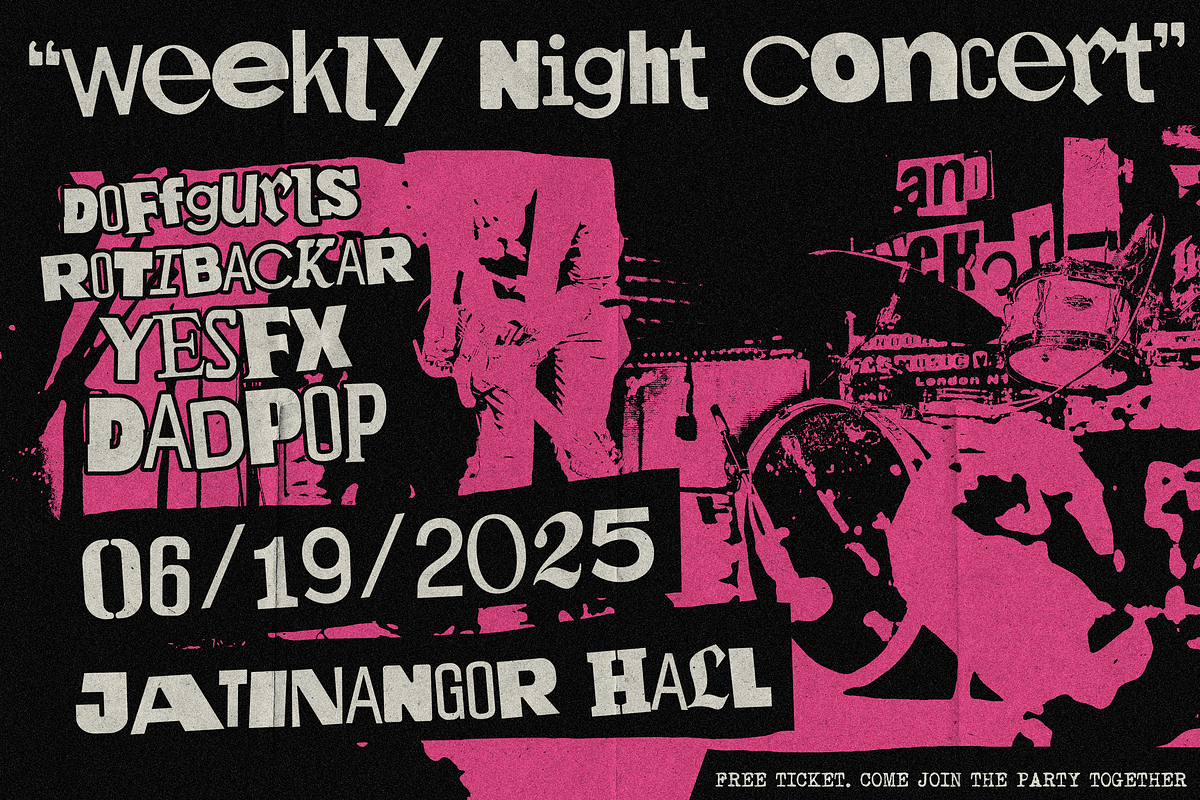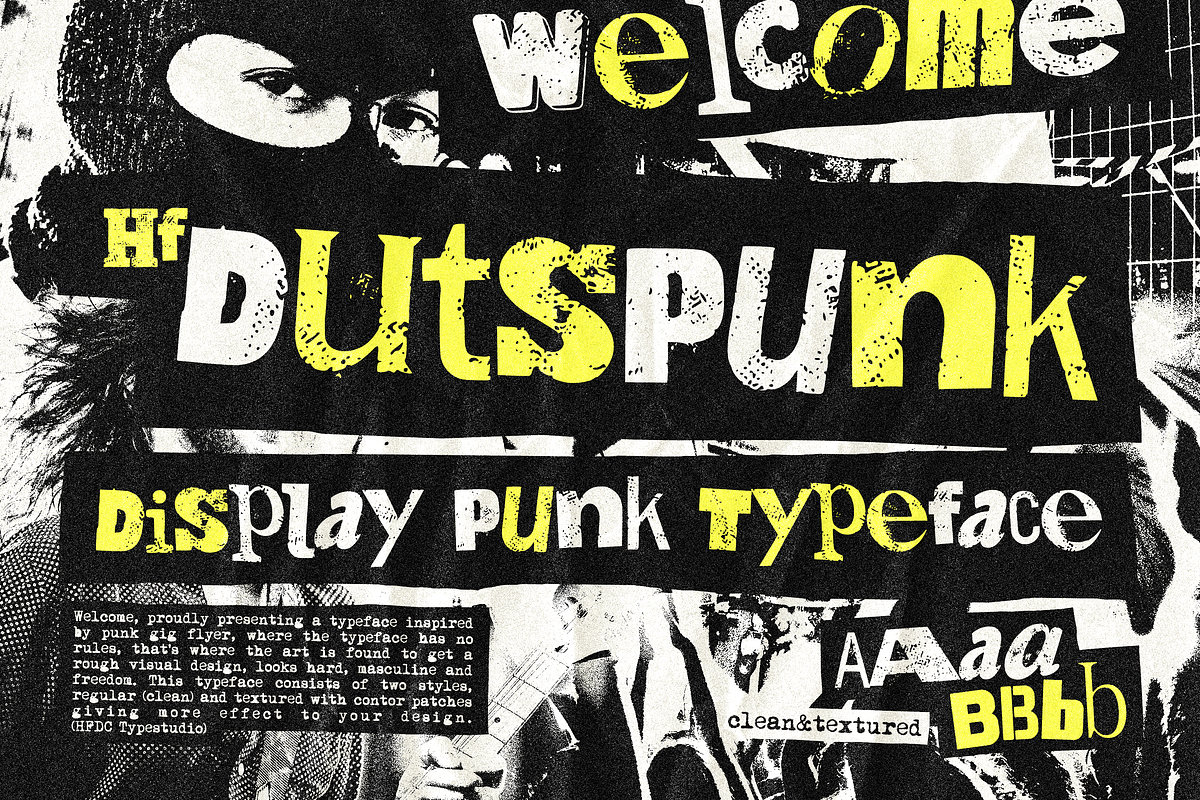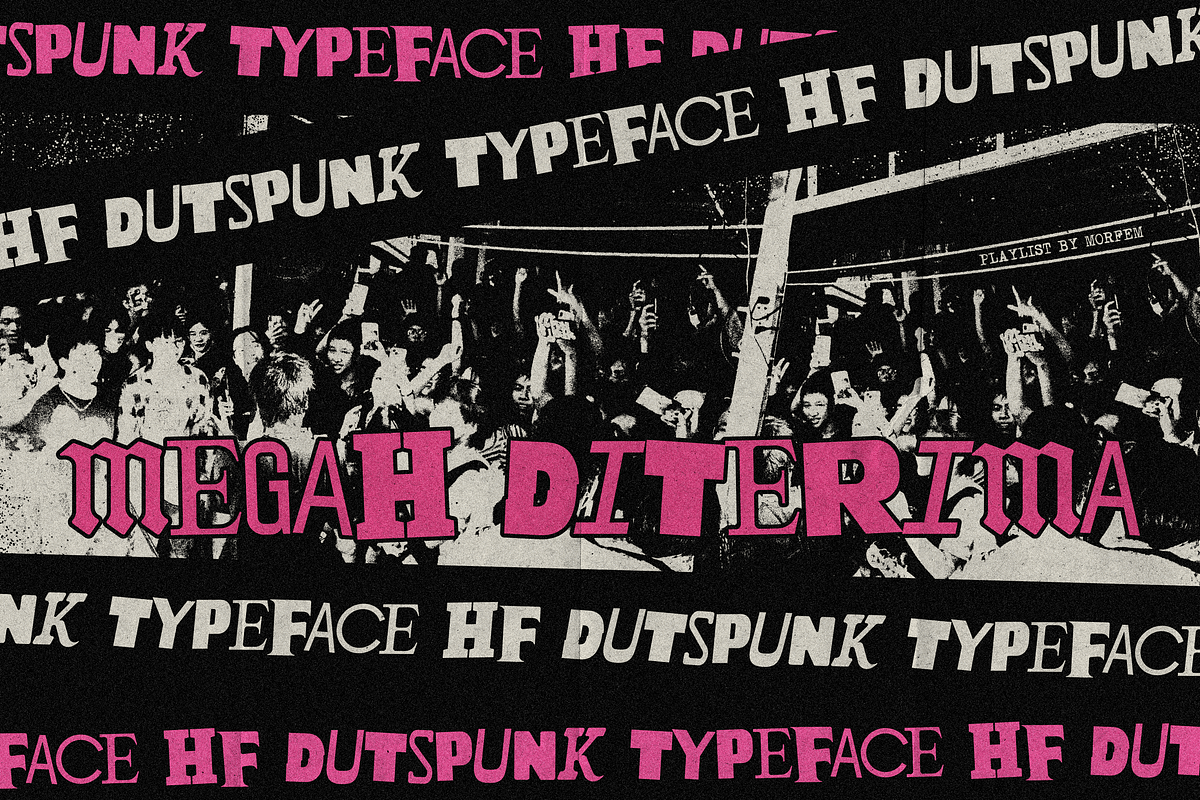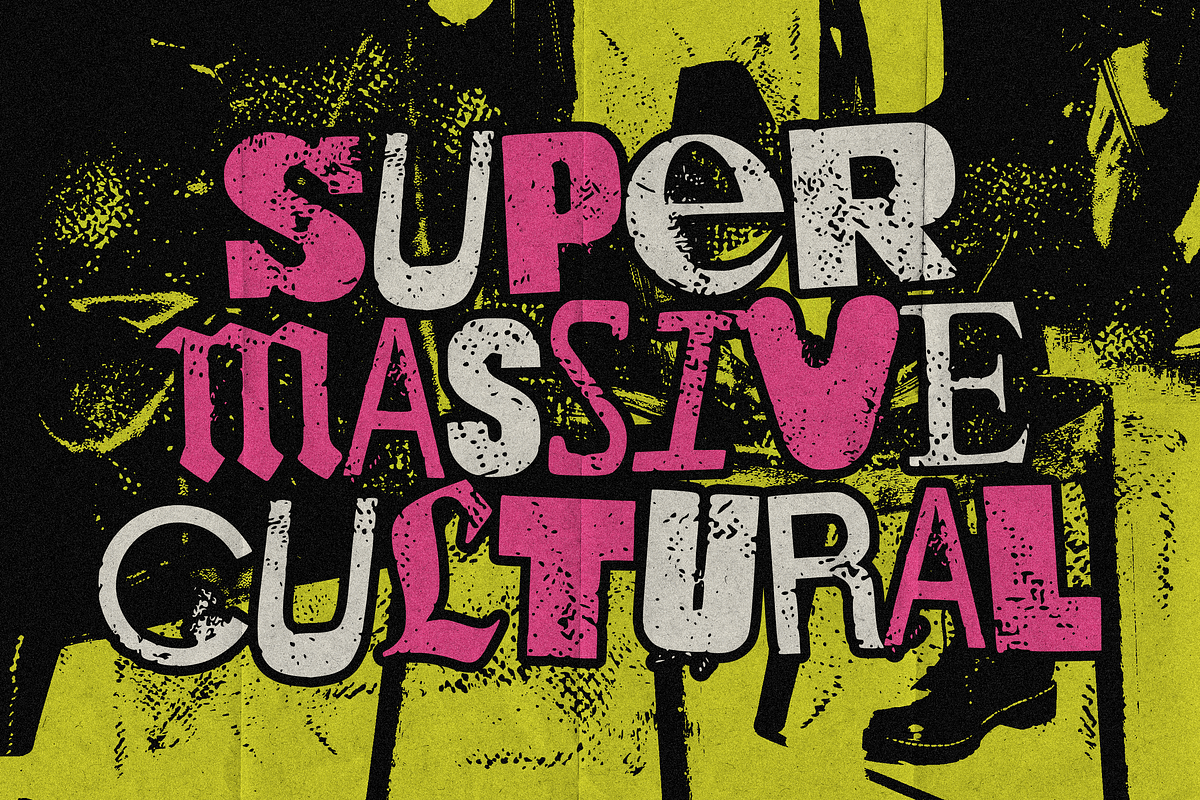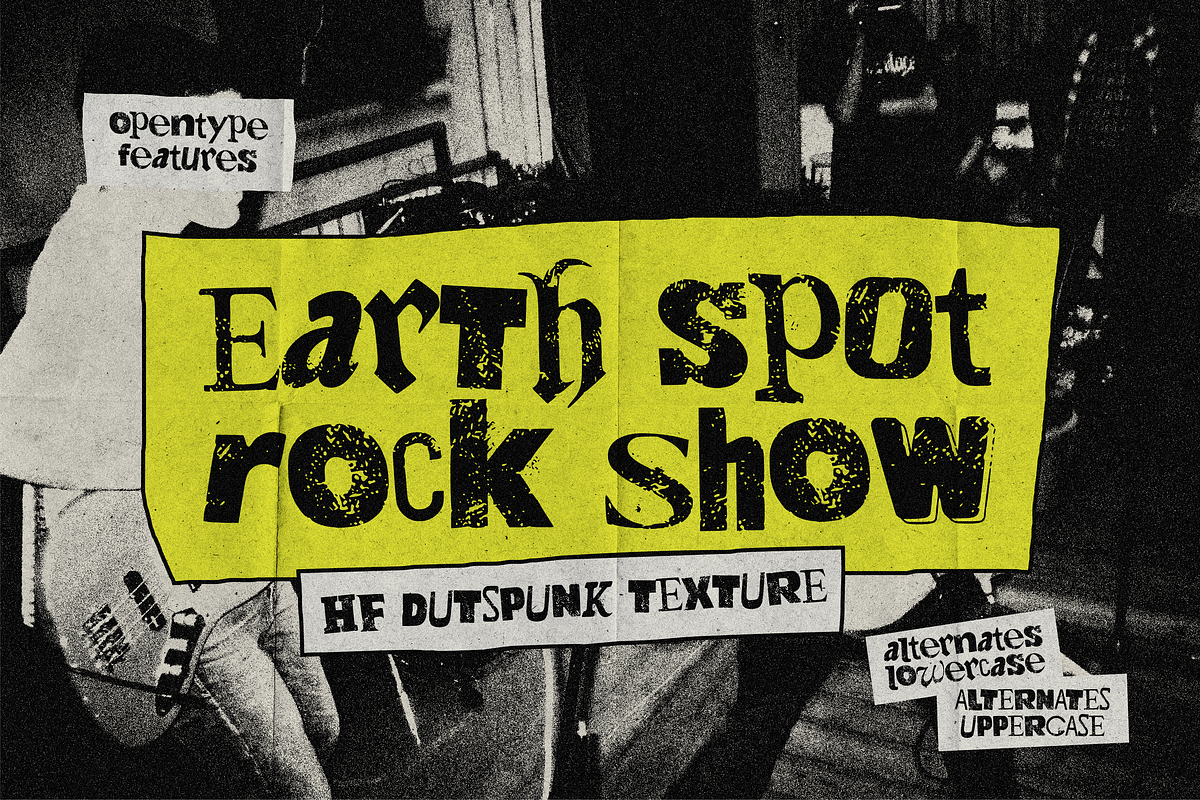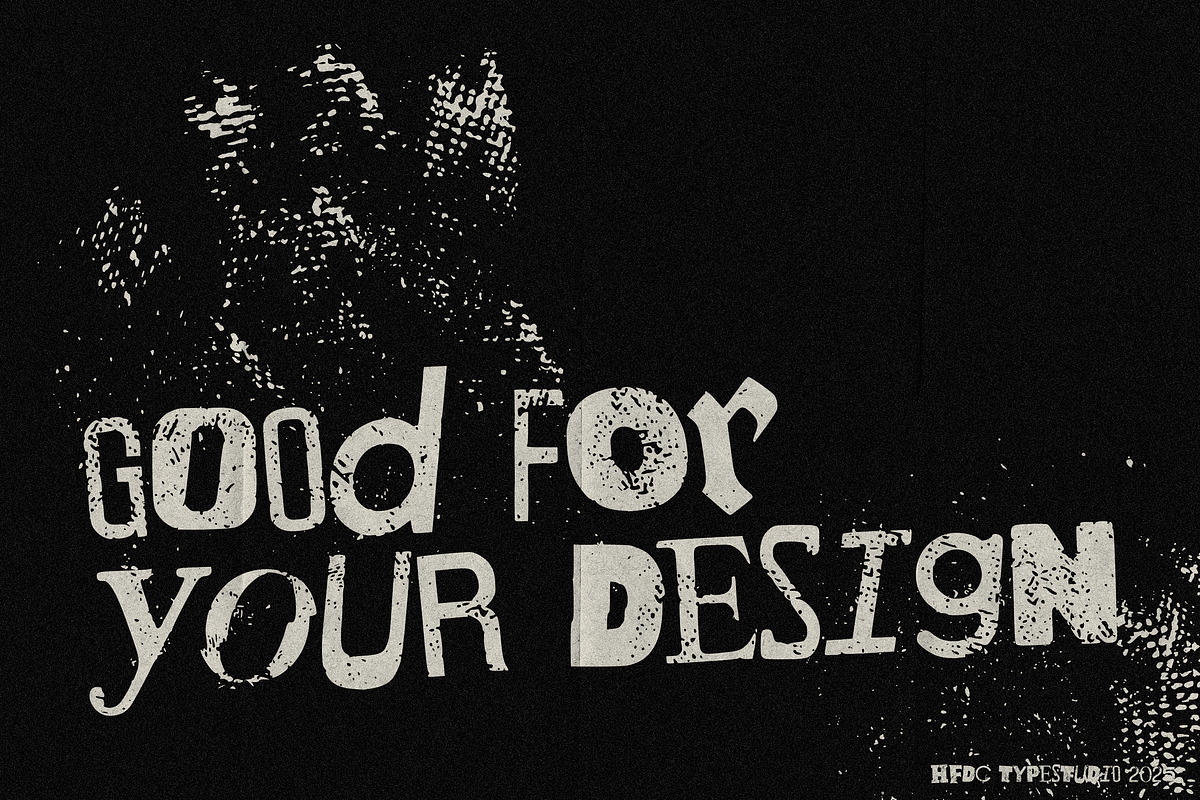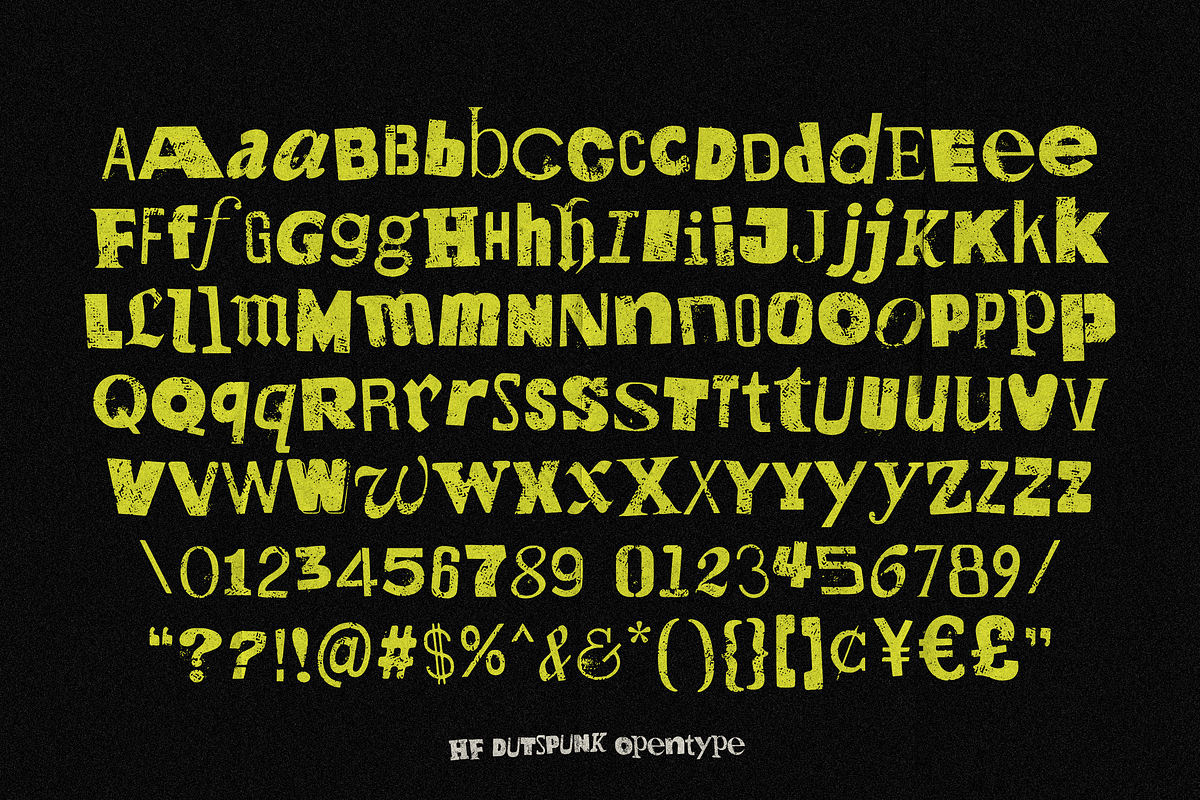
HF Dutspunk Display Font
HF Dutspunk is a rebellious display typeface that breaks all the rules in the best way. With two expressive styles Regular (clean) and Textured (grungy, worn-out) this font is made for designers who want to make bold, gritty, and unforgettable visual statements.
What sets HF Dutspunk apart? Alternates. Lots of them. Almost every major character has at least one alternate form, giving you the freedom to mix, match, and craft unique typographic rhythms. Whether you’re designing punk zines, band posters, edgy logos, or experimental artwork, HF Dutspunk lets you inject randomness and personality into every word.
- 2 Styles: Clean (Regular) & Textured
- Extensive Alternates for uppercase, lowercase, and numerals
- Full punctuation and multilingual support
Great for posters, streetwear branding, album covers, book titles, and anything that dares to be different